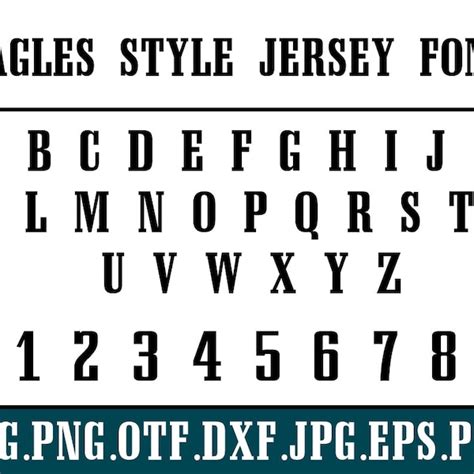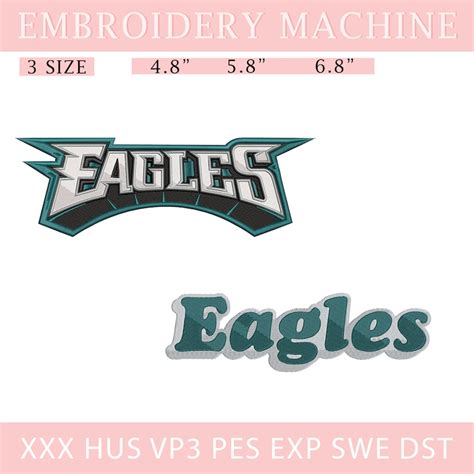
PHILADELPHIA EAGLES FONT
The Philadelphia Eagles font is a distinctive and iconic element of the NFL team's branding. This font has become an integral part of the team's identity, used across various media and merchandise. It is a crucial component in the team's visual identity, helping to convey the spirit and passion of the Eagles.
The font is designed to capture the essence of the city of Philadelphia and the team's rich history. It is a bold and modern take on a classic serif font, with a unique twist that sets it apart from traditional sports team logos. The design incorporates elements that reflect the city's culture and heritage, making it a powerful symbol for fans and a memorable representation of the team's brand.
One of the key benefits of the Philadelphia Eagles font is its versatility. It can be used in a wide range of applications, from team logos and merchandise to digital media and print materials. Its unique style ensures that it stands out and captures attention, making it an excellent choice for promoting the team and creating a strong visual identity.
The font's design also emphasizes the team's commitment to tradition and excellence. The serif style, with its emphasis on clarity and readability, reflects the team's history and values. This font is a powerful tool in communicating the team's identity and connecting with fans on a deeper level.
In summary, the Philadelphia Eagles font is a carefully crafted and distinctive element of the team's branding. Its unique style, versatility, and connection to the city's heritage make it an iconic and memorable representation of the Eagles, leaving a lasting impression on fans and the wider sports community.